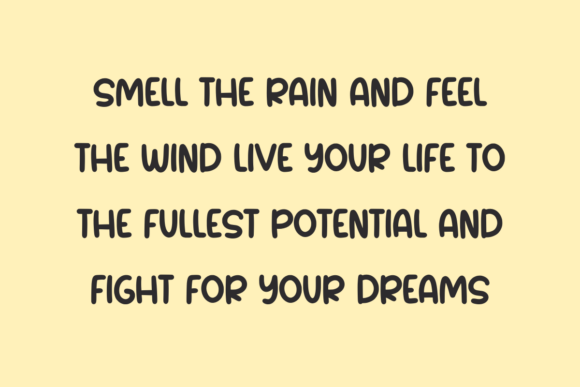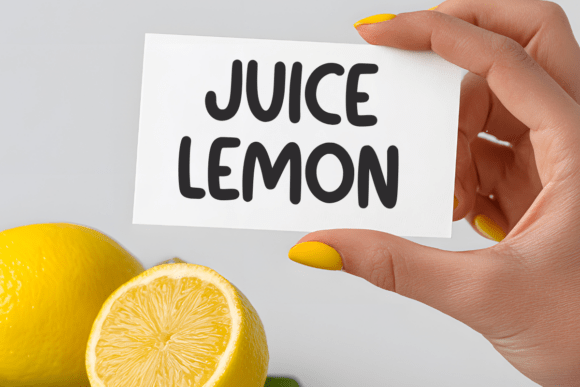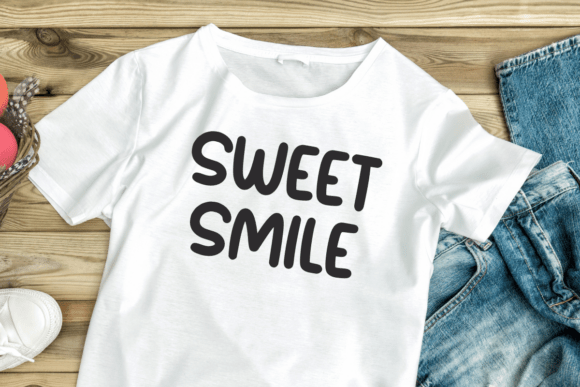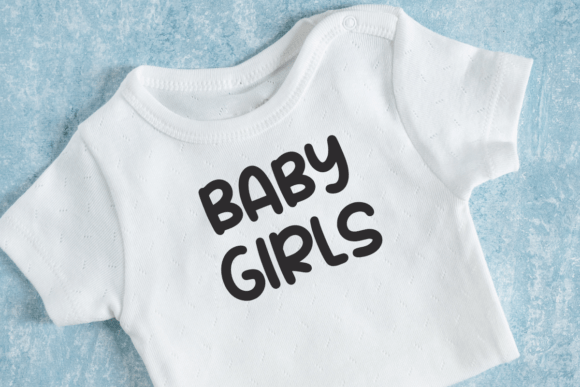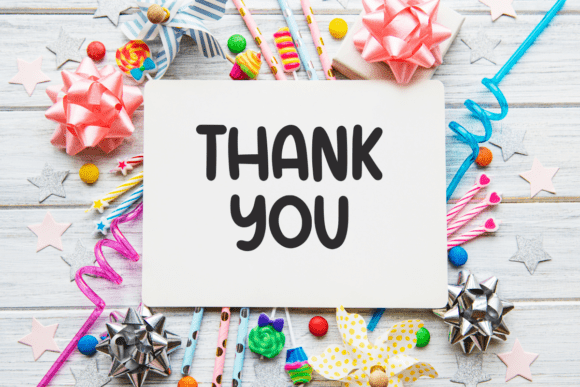
Crazy Frogs Font: Add a Playful Touch to Your Designs
Are you looking for a font that can add a fresh and friendly touch to your designs? Look no further than the Crazy Frogs Font! This cheerful display font is perfect for a variety of projects, from food packaging to children’s projects, summer branding, and more. In this article, we’ll take a closer look at the Crazy Frogs Font and explore its features, benefits, and uses.
What is Crazy Frogs Font?
Crazy Frogs Font is a soft, rounded display font with a hand-drawn feel. Its playful curves and clean letterforms make it ideal for designs that require a friendly and approachable personality. The font is perfect for designers and crafters who want to add a touch of whimsy and fun to their work.
Key Features of Crazy Frogs Font
- Soft and Rounded Style: The Crazy Frogs Font features a soft and rounded style that gives it a friendly and approachable feel.
- Hand-Drawn Feel: The font has a hand-drawn feel that adds a touch of personality and whimsy to your designs.
- Playful Curves: The font features playful curves that make it perfect for designs that require a fun and lively touch.
- Clean Letterforms: The font has clean letterforms that make it easy to read and understand.
Uses of Crazy Frogs Font
Crazy Frogs Font is a versatile font that can be used for a variety of projects, including:
- Food Packaging: The font is perfect for food packaging designs that require a fresh and friendly touch.
- Children’s Projects: The font is ideal for children’s projects, such as books, games, and educational materials.
- Summer Branding: The font is perfect for summer branding projects, such as logos, social media graphics, and product labels.
- Logos and Social Media Graphics: The font can be used to create fun and engaging logos and social media graphics.
- Product Labels: The font is perfect for product labels that require a friendly and approachable personality.
Benefits of Using Crazy Frogs Font
Using Crazy Frogs Font can bring a number of benefits to your designs, including:
- Unique and Playful Touch: The font adds a unique and playful touch to your designs, making them stand out from the crowd.
- Friendliness and Approachability: The font’s friendly and approachable personality makes it perfect for designs that require a warm and welcoming feel.
- Versatility: The font is versatile and can be used for a variety of projects, from food packaging to children’s projects.
Tips for Using Crazy Frogs Font
Here are a few tips for using Crazy Frogs Font in your designs:
- Use it for Headings and Titles: The font is perfect for headings and titles, where you want to make a bold and playful statement.
- Pair it with Other Fonts: The font can be paired with other fonts to create a unique and interesting contrast.
- Experiment with Colors: The font looks great in bright and bold colors, so don’t be afraid to experiment and find the perfect color scheme for your design.
Crazy Frogs Font is a cheerful display font that can add a fresh and friendly touch to your designs. Its playful curves and clean letterforms make it ideal for a variety of projects, from food packaging to children’s projects, summer branding, and more. With its unique and playful touch, friendliness and approachability, and versatility, Crazy Frogs Font is a great choice for designers and crafters who want to add a touch of whimsy and fun to their work.